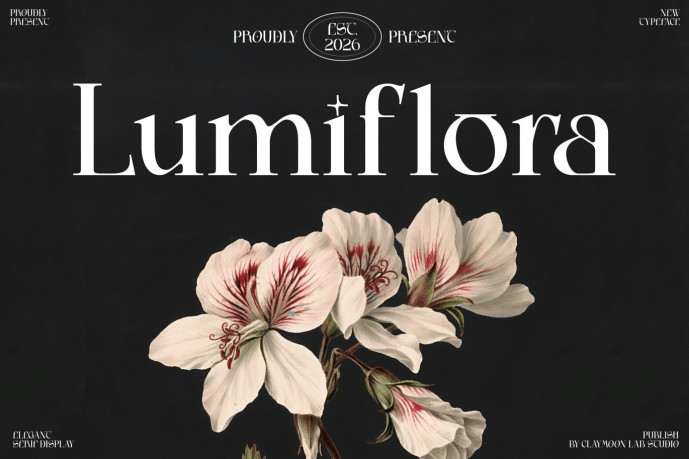
Lumiflora — Elegant Display Serif Typeface
Where botanical grace meets typographic mastery — Lumiflora is a high-contrast elegant display serif that blooms with quiet authority across every application it graces. Inspired by the delicate tension between organic nature and refined structure, Lumiflora features dramatically tapered strokes, gracefully arched crossbars, and distinctive decorative star terminals that give each character an unmistakable signature of celestial sophistication.
The letterforms carry a dual personality — commanding at display scale with sweeping contrast between hairline thins and bold thick strokes, yet intimate and refined when set at smaller sizes. An extensive ligature and alternate character system opens up limitless typographic possibilities, allowing designers to craft compositions that feel genuinely bespoke, effortlessly elegant, and impossible to replicate with any other typeface.